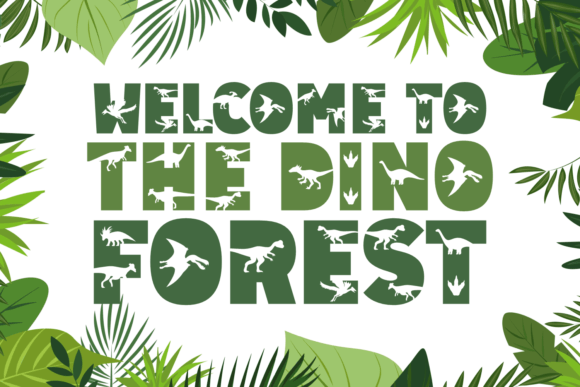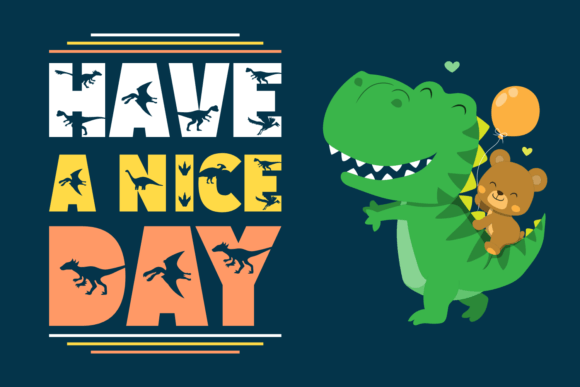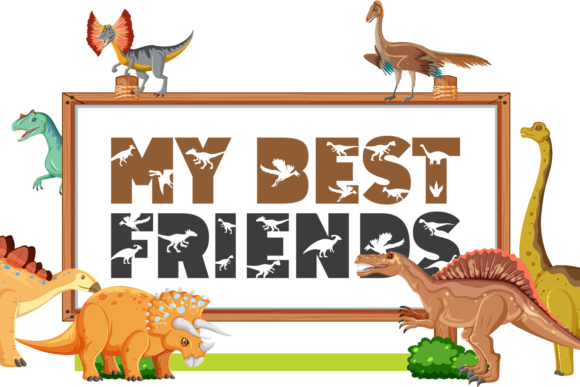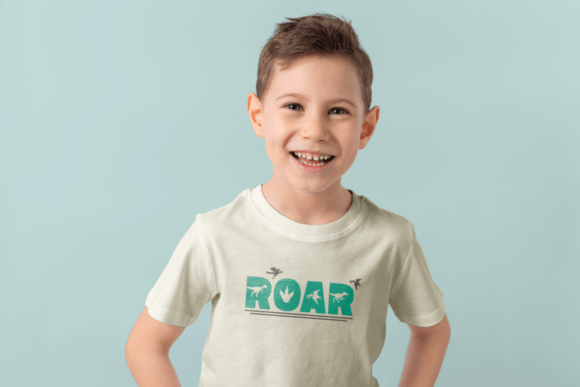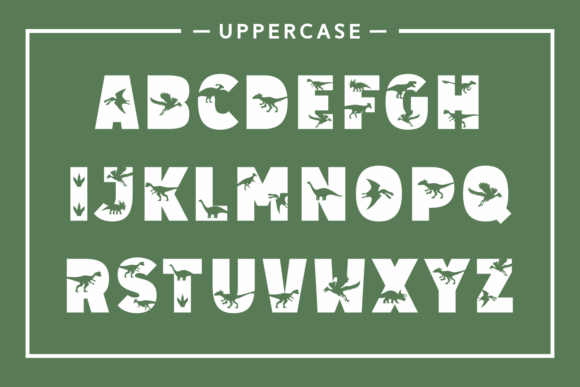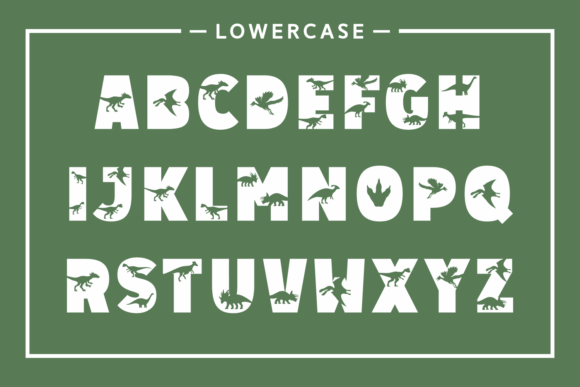
Dino Hagor Font: Unleash Your Creativity with a Playful Dinosaur-Inspired Typeface
Are you a designer, crafter, or DIY enthusiast looking for a fun and playful font to add some excitement to your projects? Look no further than the Dino Hagor Font! This delightful, dinosaur-inspired decorative font is perfect for kids and adults alike, and its versatility makes it suitable for a wide range of applications.
What Makes Dino Hagor Font So Special?
The Dino Hagor Font is a bold, eye-catching typeface that combines the charm of dinosaurs with a playful, modern twist. Its characters are designed to be kid-friendly, making it an excellent choice for projects aimed at a younger audience. The font features a range of dinosaur patterns and glyphs, which can be easily accessed thanks to its PUA (Private Use Area) encoding.
So, what can you create with the Dino Hagor Font? The possibilities are endless! Here are some ideas to get you started:
- T-shirt designs: Add a fun, prehistoric touch to your apparel designs with this bold and playful font.
- Paper crafts: Create adorable dinosaur-themed cards, invitations, and decorations for kids’ parties or special occasions.
- Web graphics: Use the Dino Hagor Font to add a pop of personality to your website, social media graphics, or online ads.
- Stationery and planners: Add a touch of whimsy to your stationery, journals, or planners with this delightful font.
- Signs and posters: Create eye-catching signs and posters for kids’ events, exhibitions, or promotions.
Why Choose Dino Hagor Font?
Here are just a few reasons why the Dino Hagor Font stands out from the crowd:
- Kid-friendly: The font’s playful design and dinosaur theme make it perfect for projects aimed at kids.
- Versatile: Use the font for a wide range of applications, from t-shirt designs to web graphics.
- Unique: The Dino Hagor Font offers a fresh and distinctive look that will set your designs apart.
In conclusion, the Dino Hagor Font is a fantastic addition to any designer’s or crafter’s toolkit. Its unique blend of playfulness and versatility makes it an excellent choice for a wide range of projects. So go ahead, get creative, and let the Dino Hagor Font help you unleash your imagination!